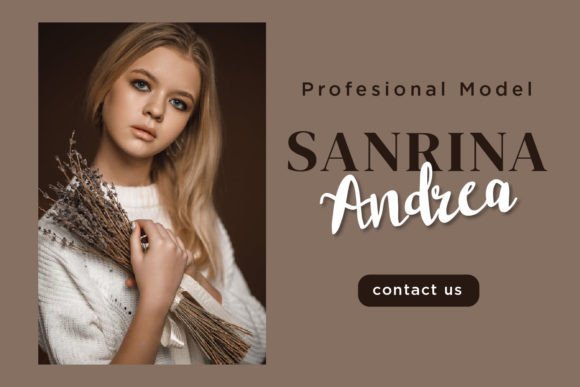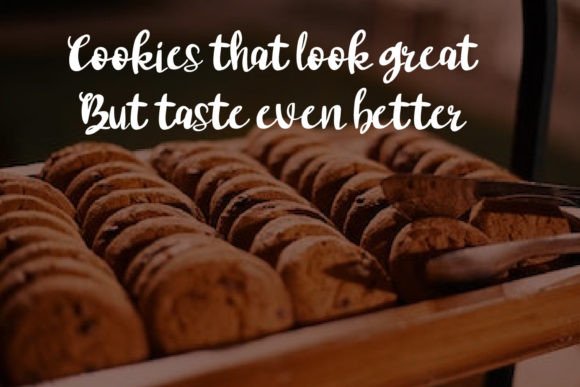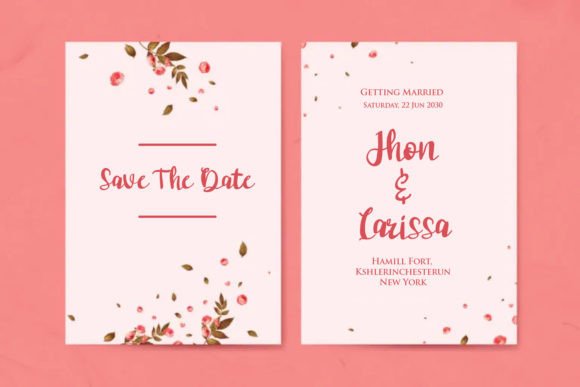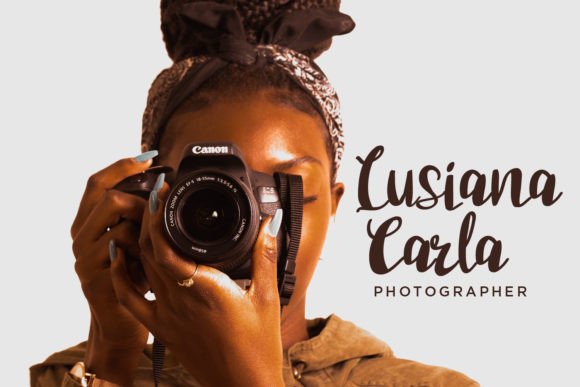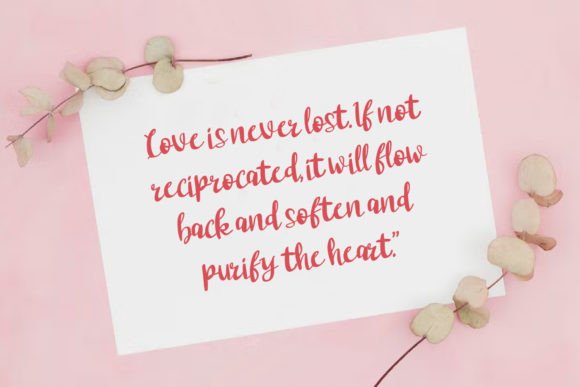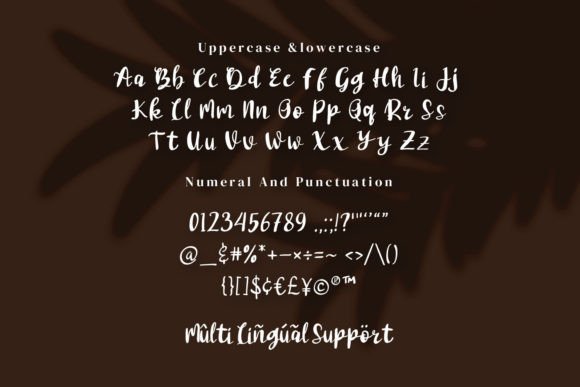
Discover the Elegance of Elevania Font: A Perfect Blend of Sophistication and Whimsy
In the world of typography, few fonts manage to strike a balance between elegance and playfulness. Elevania Font is one such remarkable creation that effortlessly combines sophistication with a touch of whimsy, making it a standout choice for designers and crafters alike. This captivating font is designed to draw the eye with its graceful curves and stylish design, adding a unique and delightful flair to any project.
The Essence of Elevania Font
Elevania Font is a masterpiece that exudes refinement and luxury through its fine strokes and elegant flourishes. Each letter is carefully crafted to convey a sense of sophistication, making it an ideal choice for projects that demand a high level of elegance. Whether you’re working on a branding project, a wedding invitation, or a packaging design, Elevania Font is sure to elevate your work to new heights.
One of the defining features of Elevania Font is its playful personality. While it boasts a refined and sophisticated look, it also has a touch of whimsy that adds a dash of fun to any project. This unique blend of elegance and playfulness makes Elevania Font versatile and suitable for a wide range of applications.
Key Features of Elevania Font
- Elegant Curves: Elevania Font features graceful curves that give it a sophisticated and refined look.
- Fine Strokes: The font’s fine strokes add to its elegance, making it perfect for projects that require a touch of luxury.
- Playful Personality: Despite its sophistication, Elevania Font has a playful side that adds a touch of whimsy to any project.
- Elegant Flourishes: The font’s elegant flourishes further enhance its refined look, making it suitable for high-end projects.
Uses of Elevania Font
Elevania Font’s versatility makes it suitable for a variety of projects. Here are some of the ways you can use this exquisite font:
- Branding: Use Elevania Font to create a sophisticated and elegant brand identity that stands out from the crowd.
- Wedding Invitations: Add a touch of luxury and romance to your wedding invitations with Elevania Font.
- Packaging Design: Elevate your packaging design with Elevania Font’s elegant and refined look.
- Stationery: Create beautiful and sophisticated stationery with Elevania Font.
Why Choose Elevania Font?
With so many fonts available, why should you choose Elevania Font for your project? Here are a few compelling reasons:
- Unique Design: Elevania Font’s unique design sets it apart from other fonts, ensuring your project stands out.
- Versatility: The font’s versatility makes it suitable for a wide range of projects, from branding to packaging design.
- Elegance: Elevania Font’s elegance and sophistication make it perfect for projects that demand a high level of refinement.
| Font Name | Elevania Font |
| Author | Naharstdio |
Elevania Font is a captivating and charming creation that can add a unique and delightful flair to any project. Its fine strokes, elegant flourishes, and playful personality make it a standout choice for designers and crafters. Whether you’re looking to create a sophisticated brand identity, a luxurious packaging design, or a beautiful wedding invitation, Elevania Font is the perfect choice. With its elegance, versatility, and unique design, Elevania Font is sure to elevate your work to new heights.